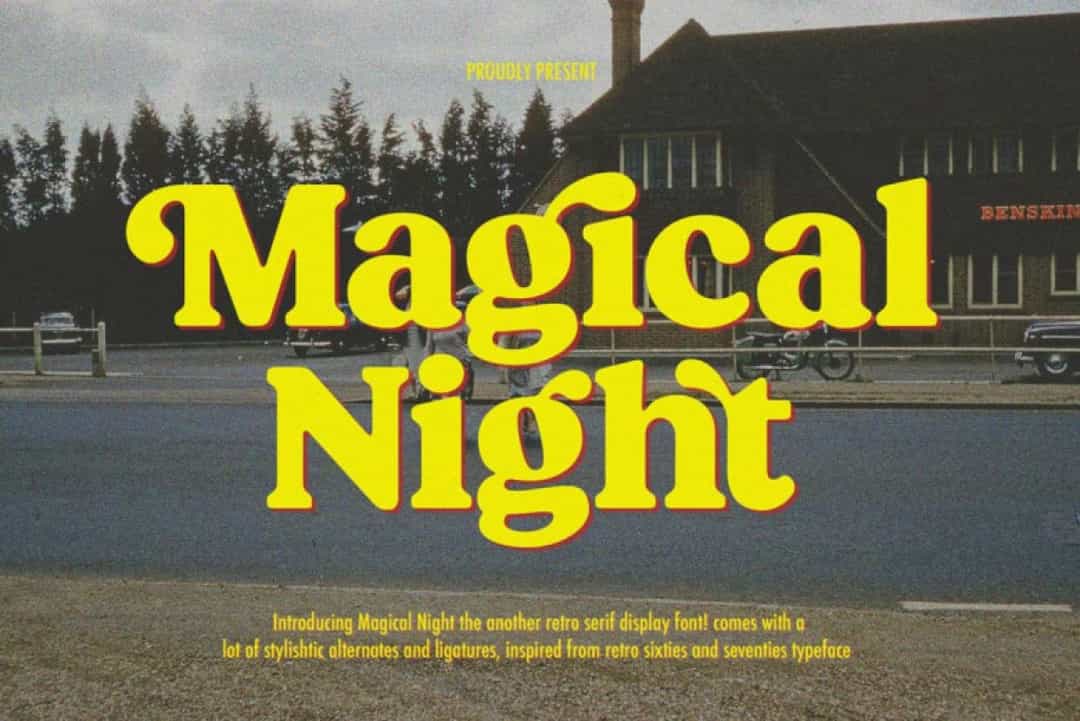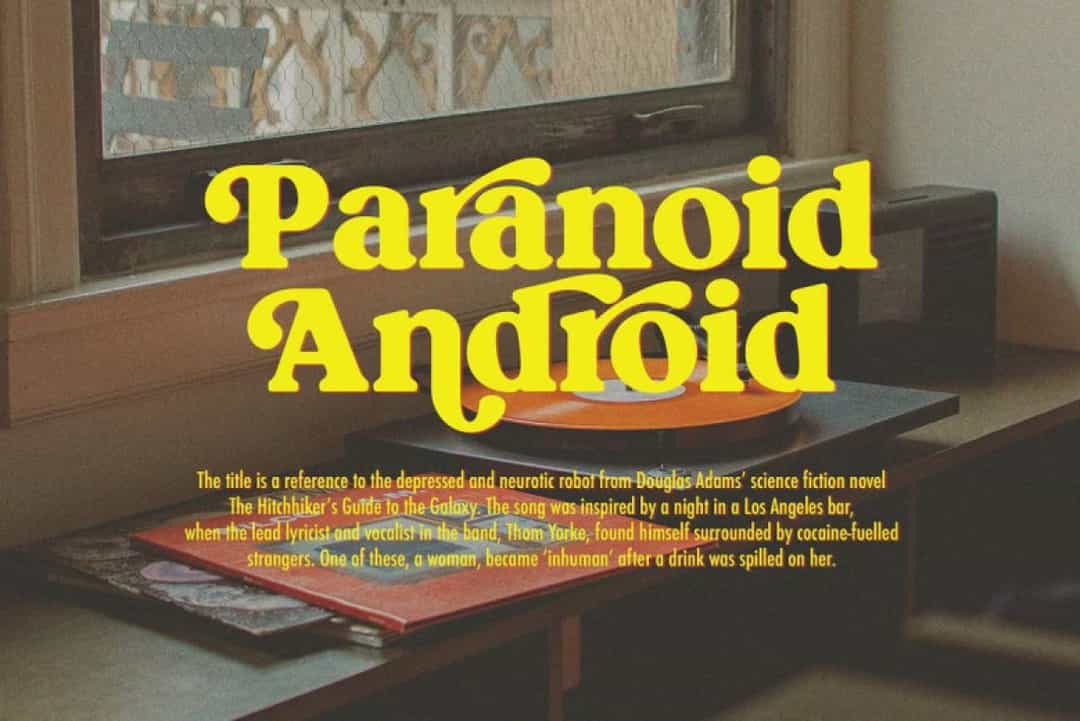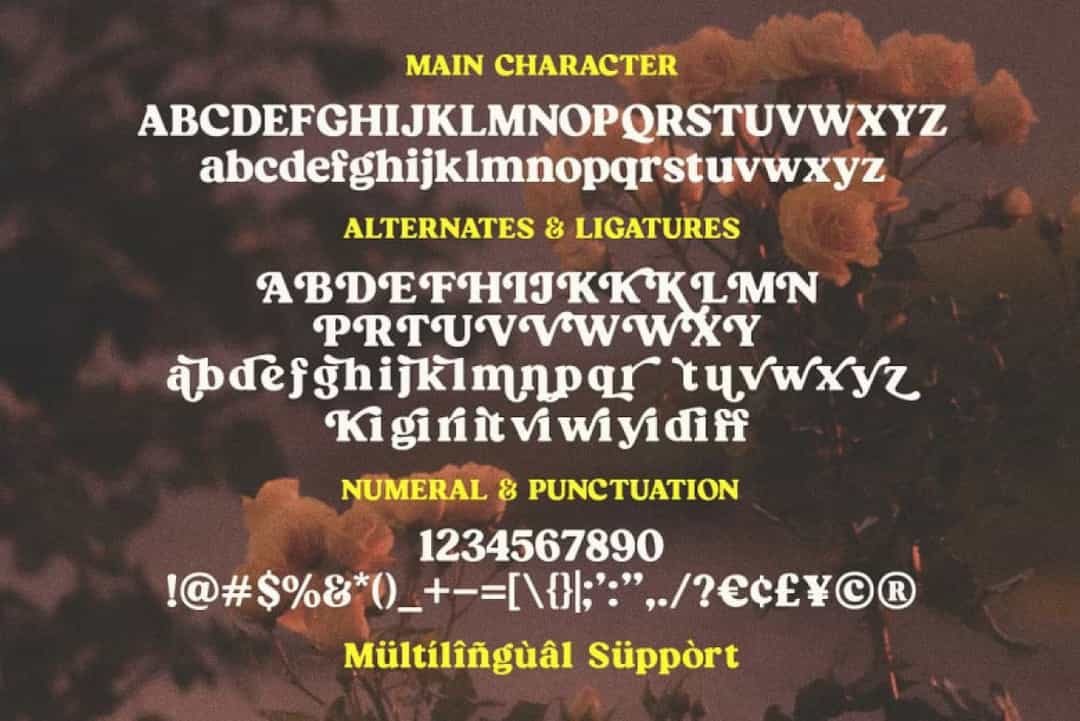
Magical Night is an alternative classic serif typeface inspired by classic seventies and sixties large typefaces. Its alternate and ligature characters give this font more retro charm. Perfect for logotypes, headings poster use, etc.